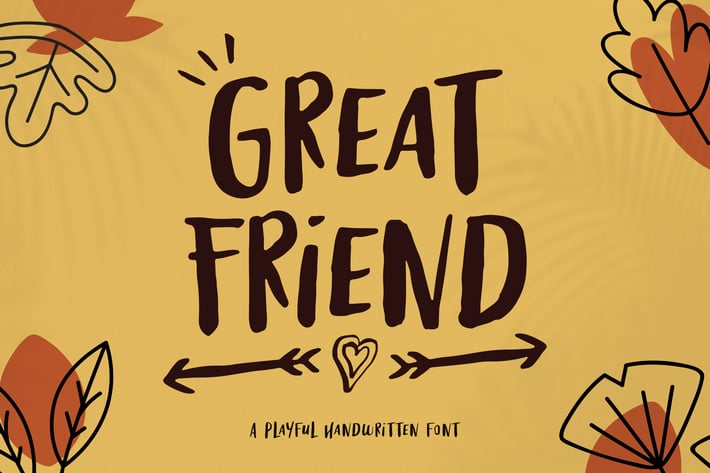
Great Friend Academic Font
Great Friend is a raw and dynamic script that feels beauty and friendship. Use it to take any design idea to the next level